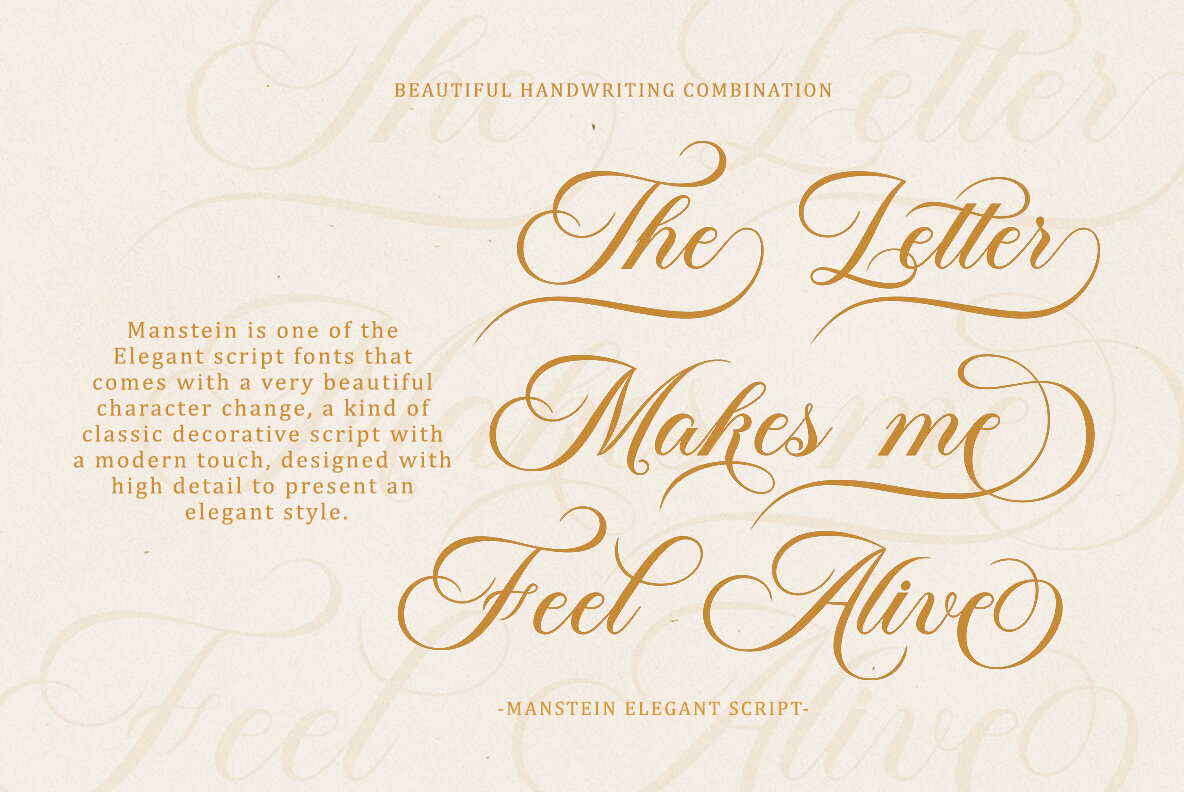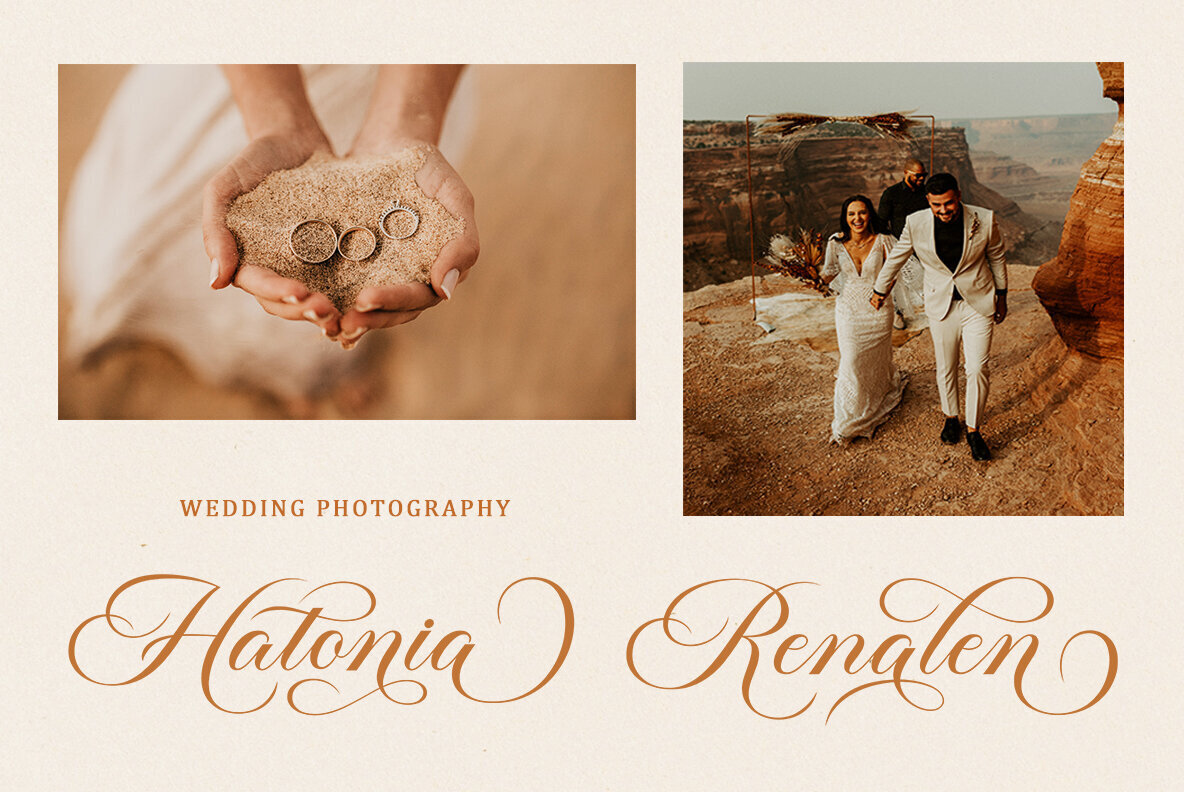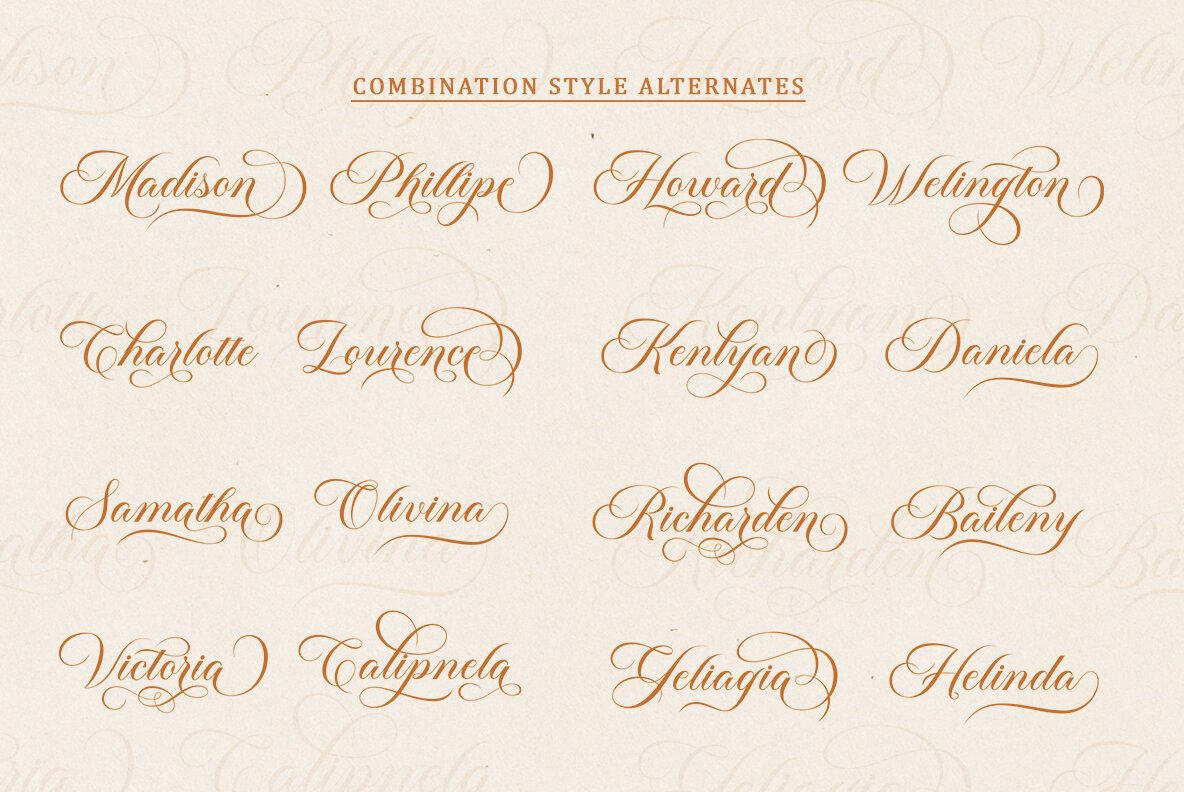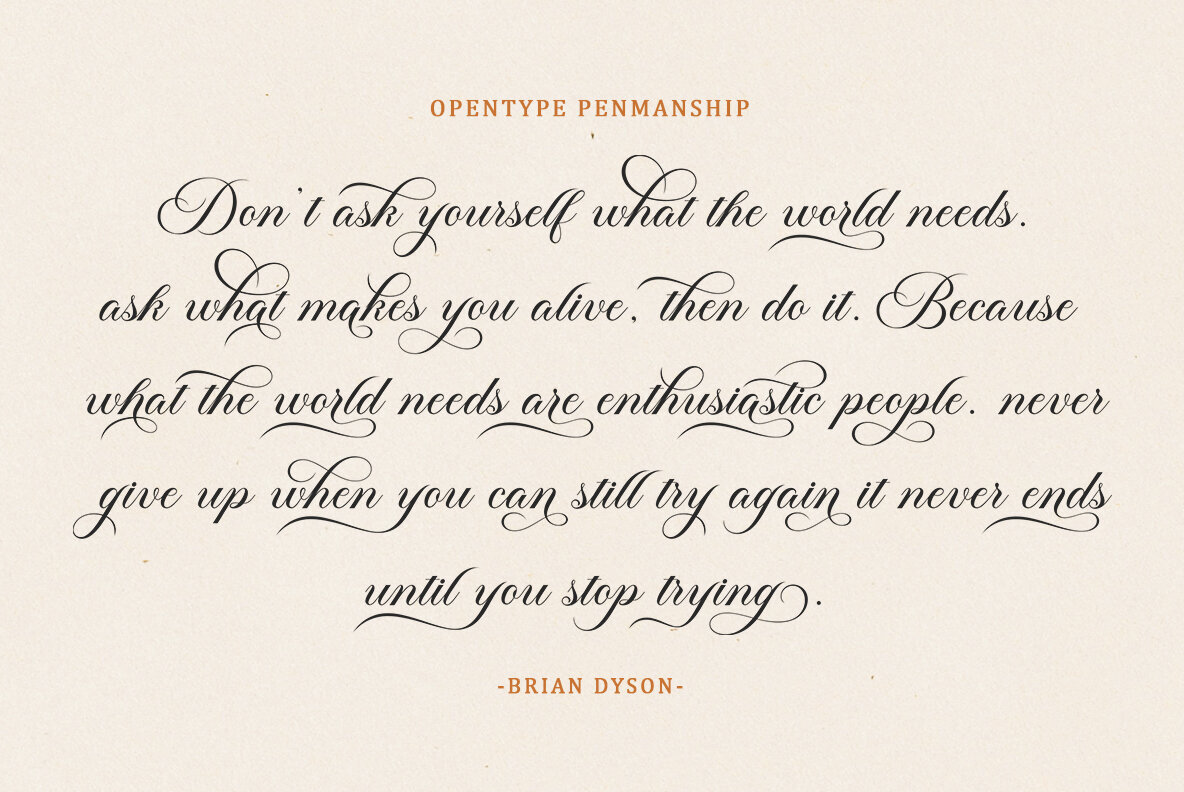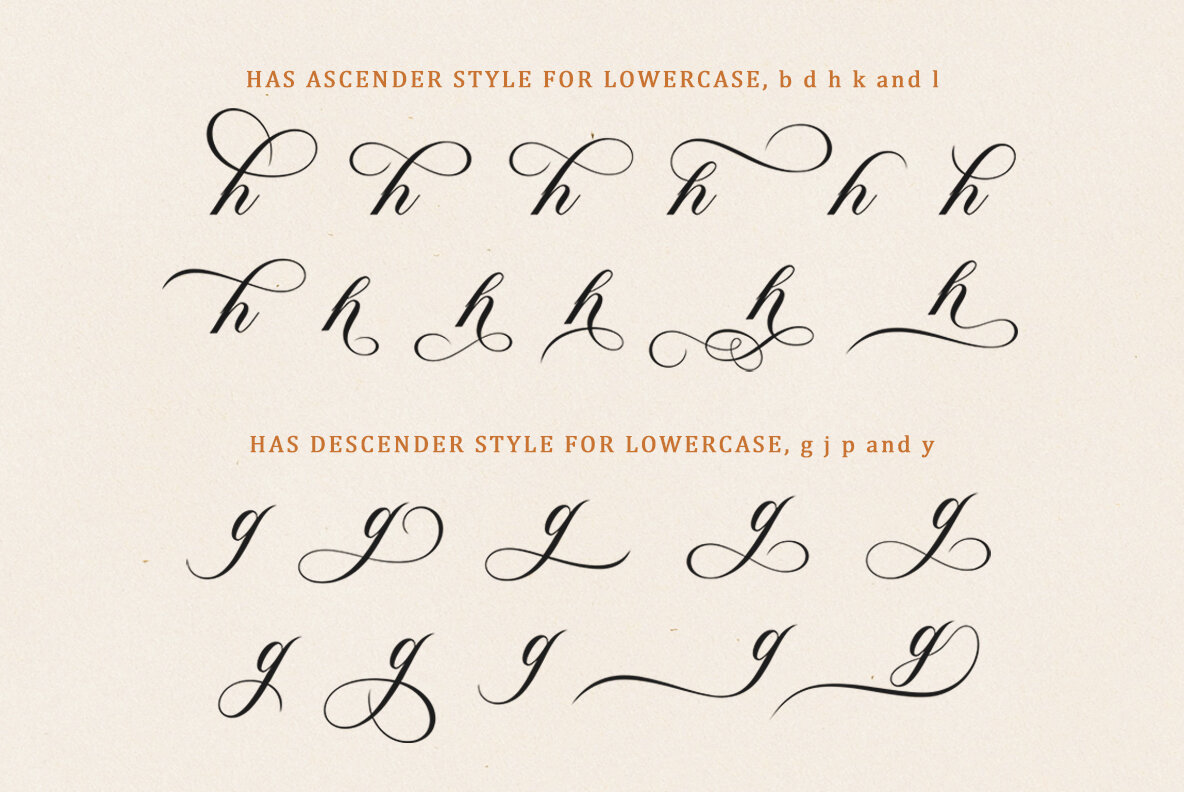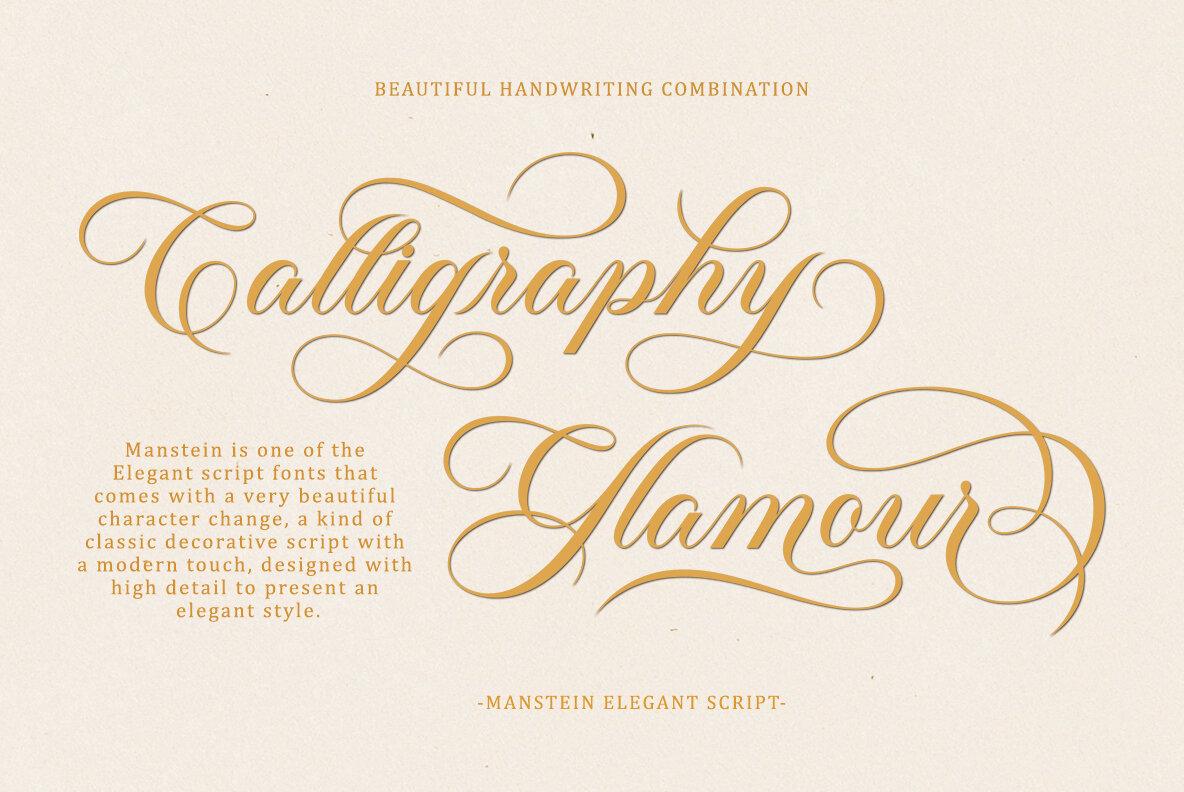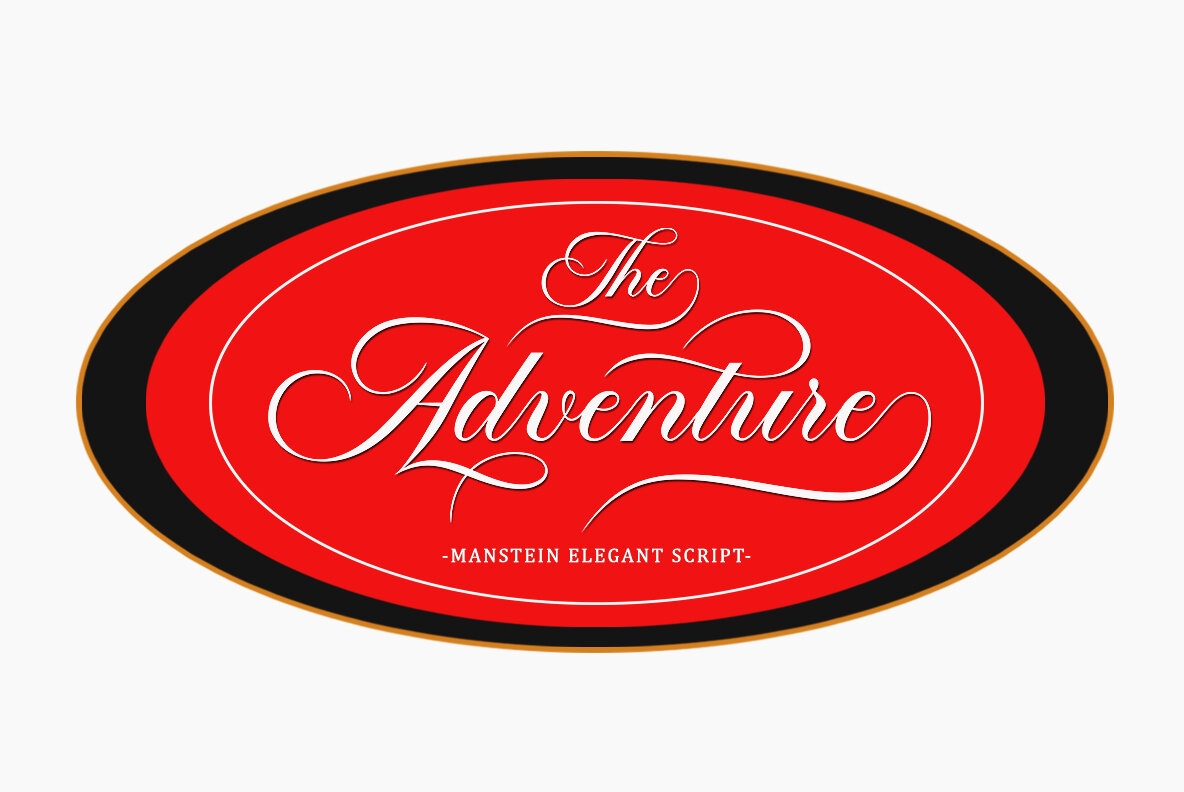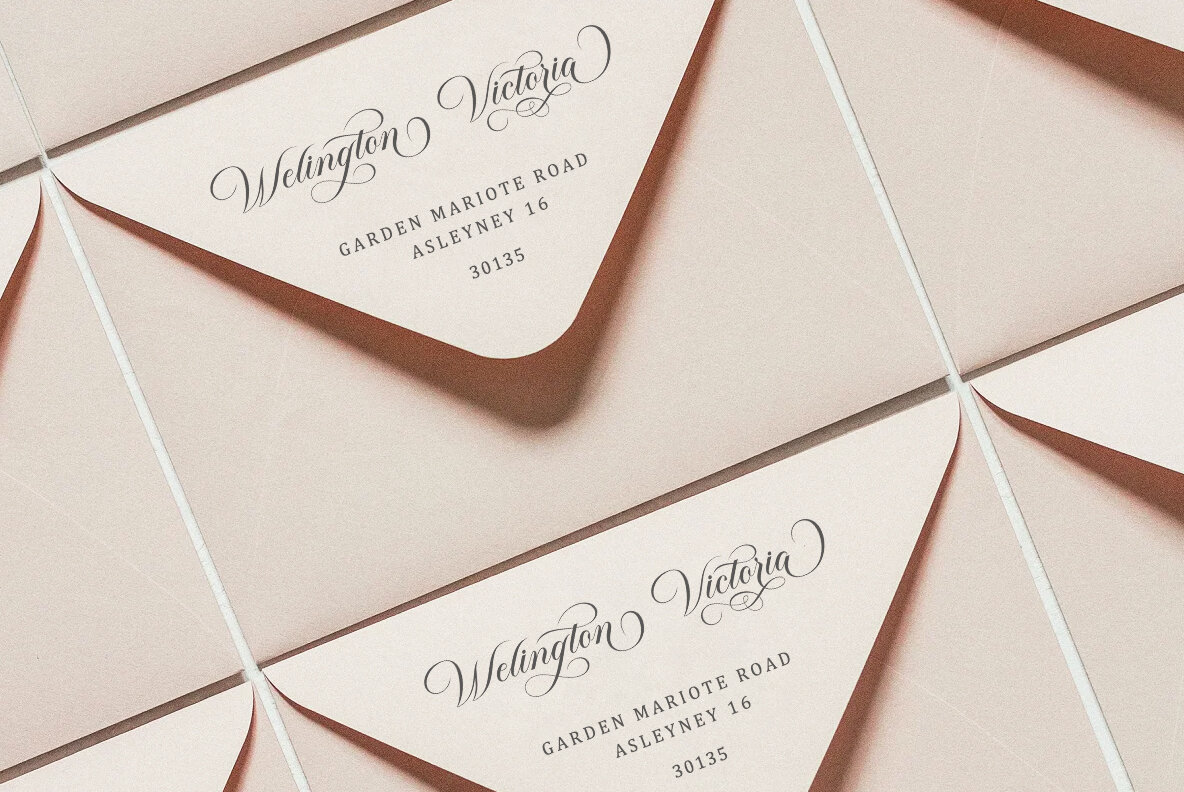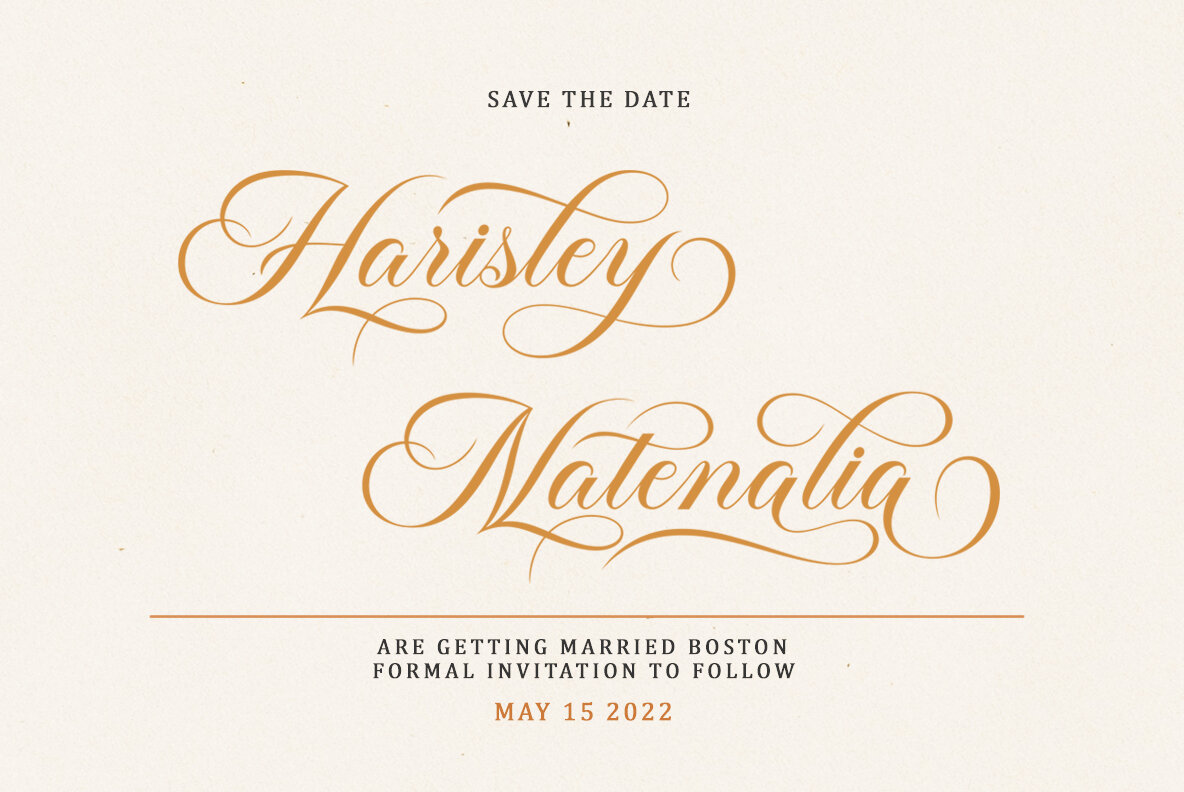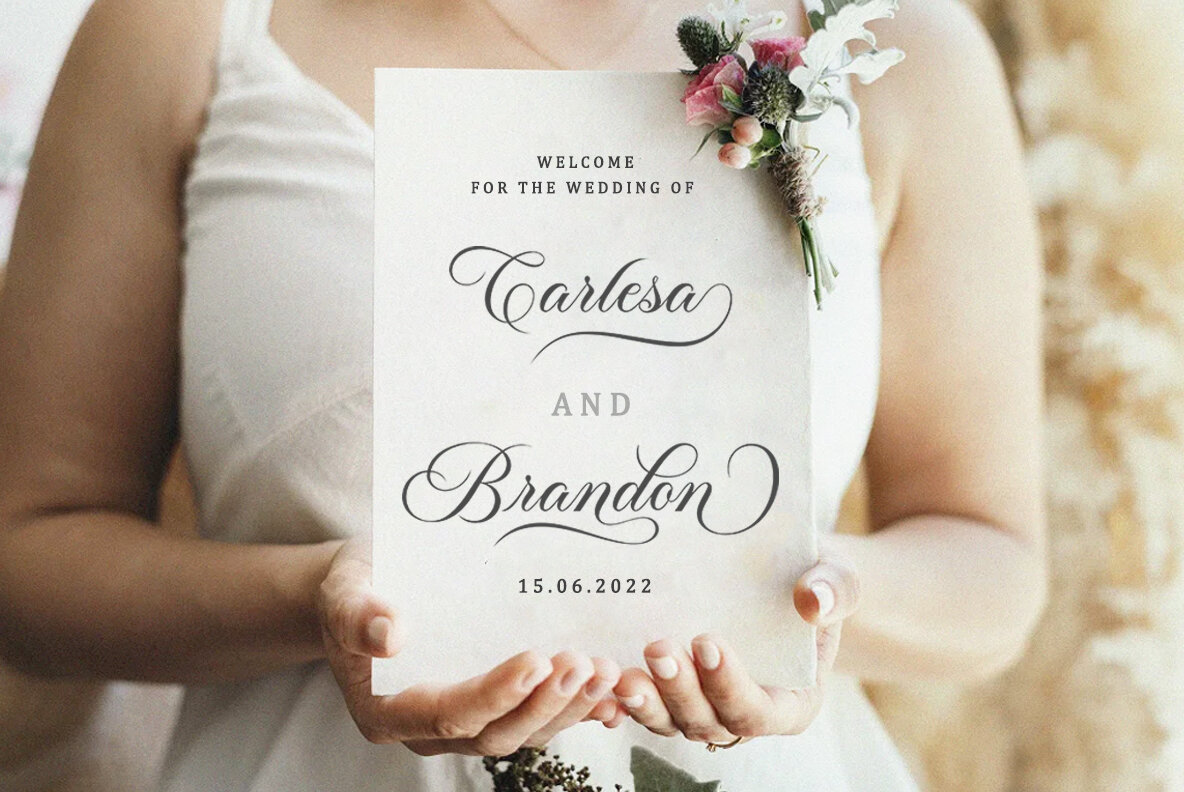
Manstein Font
Manstein
Manstein, crafted by Master Type, exemplifies the charm of classic script fonts merged with contemporary nuance. This font embodies fluidity and grace, rendering it an ideal choice for projects that demand elegance and personal touch. Graphic designers will find Manstein's versatility indispensable, as it effortlessly enhances both digital and print mediums.Manstein: A Refined Script for Sophisticated Design